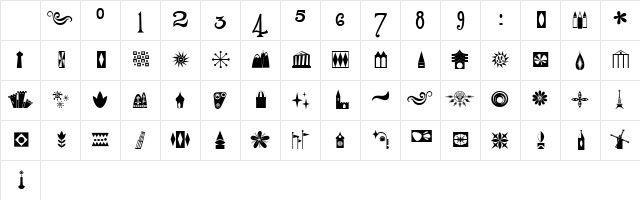
Complete BaileywickHappyGramsJF Medium glyph index. Displaying only characters natively supported by BaileywickHappyGramsJF Medium font.
BaileywickHappyGramsJF is a composed and adaptable typeface that performs quietly and consistently across a wide range of design contexts.